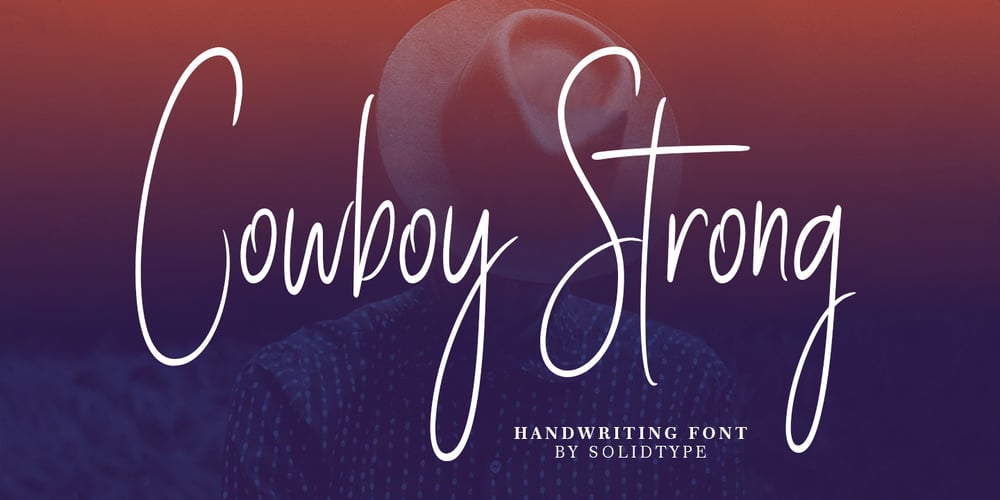
Cowboy Strong Font Family was designed by Riski Firmana and published by Solidtype. Cowboy Strong contains 7 styles and family package options. Cowboy Strong is a gorgeous and simple handwritten script font; contemporary and fashionable, Cowboy Strong looks great for a large range of project types. This elegant font is legible and looks great as a headline or in body text. This font will perfect for many different project for blogging, social media, branding, wedding invites, cards etc.Cowboy Strong font including over 70 ligatures, uppercase and lowercase alternates. you need a program that supports OpenType features such as Adobe Illustrator CS, Adobe Photoshop CC, Adobe Indesign and Corel Draw X6/X7. and you can also access the alternate glyph via Font Book (Mac user) or Windows Character Map (Windows user).